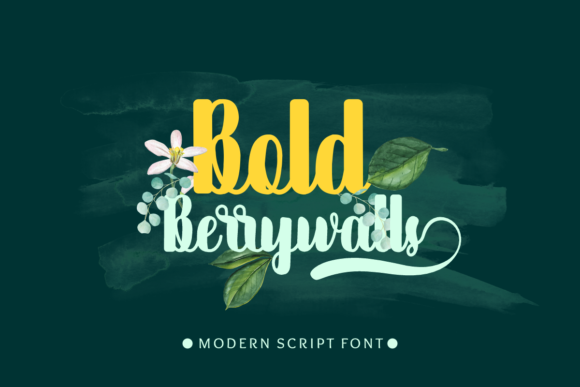
Introducing Bold Berrywalls Font: The Sweet and Neat Lettered Handwritten Font
Are you looking for a font that can add a touch of sweetness and elegance to your designs? Look no further than Bold Berrywalls Font, a beautiful handwritten font that is perfect for creating stunning wedding invitations, stationary art, social media posts, and more. In this article, we’ll take a closer look at Bold Berrywalls Font and explore its features, benefits, and uses.
What is Bold Berrywalls Font?
Bold Berrywalls Font is a sweet and neat lettered handwritten font that is designed to add a touch of elegance and sophistication to your designs. Its incredibly versatile style makes it perfect for a wide range of projects, from wedding invitations and stationary art to social media posts and more.
With its beautiful, cursive script and bold lettering, Bold Berrywalls Font is sure to capture the attention of your audience and leave a lasting impression. Whether you’re a designer, artist, or simply someone who loves to create, this font is a must-have in your collection.
Features of Bold Berrywalls Font
So, what makes Bold Berrywalls Font so special? Here are just a few of its key features:
- Sweet and neat lettering: Bold Berrywalls Font features beautiful, cursive script with bold lettering that is both elegant and sophisticated.
- Incredibly versatile: This font is perfect for a wide range of projects, from wedding invitations and stationary art to social media posts and more.
- Handwritten style: With its handwritten style, Bold Berrywalls Font adds a personal touch to your designs that is sure to resonate with your audience.
- Easy to read: Despite its bold lettering, Bold Berrywalls Font is easy to read, making it perfect for use in a variety of contexts.
Benefits of Using Bold Berrywalls Font
So, why should you choose Bold Berrywalls Font for your next project? Here are just a few of the benefits of using this beautiful font:
- Adds elegance and sophistication: With its beautiful, cursive script and bold lettering, Bold Berrywalls Font adds a touch of elegance and sophistication to your designs.
- Perfect for wedding invitations and stationary art: This font is ideal for creating stunning wedding invitations, stationary art, and other beautiful designs.
- Great for social media posts: Bold Berrywalls Font is also perfect for creating eye-catching social media posts that are sure to capture the attention of your audience.
- Increases readability: With its bold lettering and easy-to-read style, Bold Berrywalls Font increases readability and makes your designs more effective.
Uses of Bold Berrywalls Font
So, what can you use Bold Berrywalls Font for? Here are just a few ideas to get you started:
- Wedding invitations: Create stunning wedding invitations that are sure to impress your guests.
- Stationary art: Use Bold Berrywalls Font to create beautiful stationary art that is perfect for gift-giving or personal use.
- Social media posts: Create eye-catching social media posts that are sure to capture the attention of your audience.
- Signs and banners: Use Bold Berrywalls Font to create signs and banners that are perfect for events, promotions, and more.
Tips for Using Bold Berrywalls Font
Here are a few tips for using Bold Berrywalls Font effectively:
- Use it sparingly: While Bold Berrywalls Font is beautiful, it’s best used sparingly to avoid overwhelming your designs.
- Pair it with other fonts: Experiment with pairing Bold Berrywalls Font with other fonts to create unique and interesting combinations.
- Adjust the size and color: Don’t be afraid to adjust the size and color of Bold Berrywalls Font to suit your needs.
In conclusion, Bold Berrywalls Font is a beautiful, sweet and neat lettered handwritten font that is perfect for adding a touch of elegance and sophistication to your designs. With its incredibly versatile style, it’s perfect for a wide range of projects, from wedding invitations and stationary art to social media posts and more. Whether you’re a designer, artist, or simply someone who loves to create, Bold Berrywalls Font is a must-have in your collection.